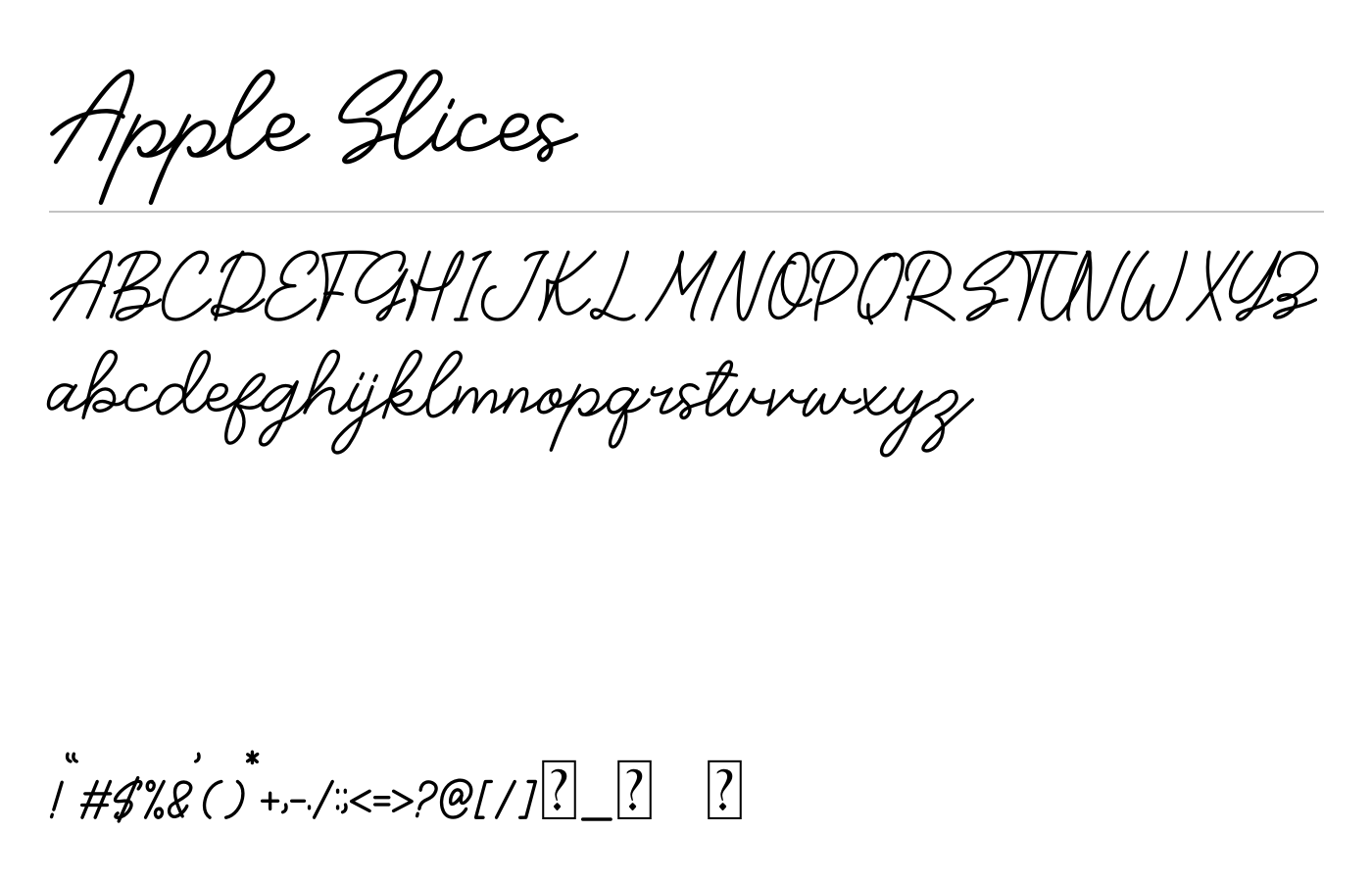
Apple Slices is a playful, handwritten script font characterized by smooth, flowing strokes that mimic natural penmanship. Its light weight and slightly condensed letterforms create an airy, casual feel, making it ideal for creative projects seeking a friendly and approachable touch. This font works beautifully in invitations, branding, and social media graphics where a personal, informal vibe is desired.
Apple Slices Font
About Apple Slices Font
| Font family | Apple Slices Font |
| Designer | Prio Nurokhim Aji |